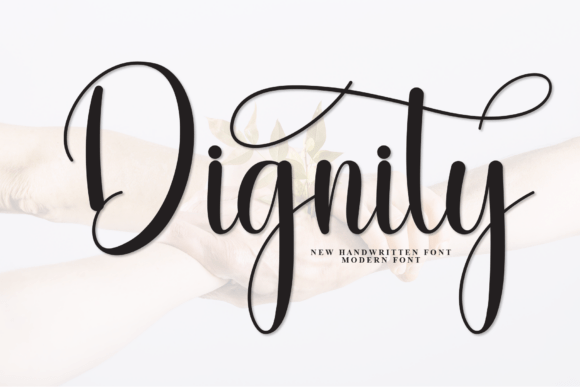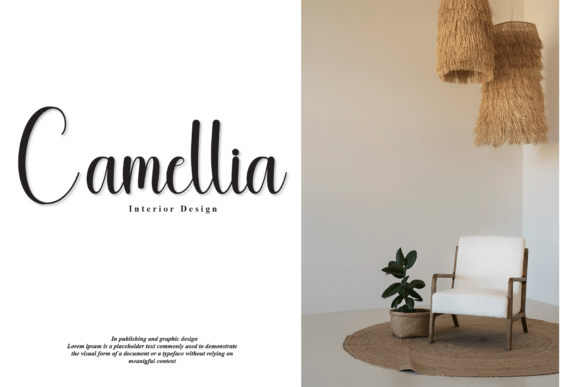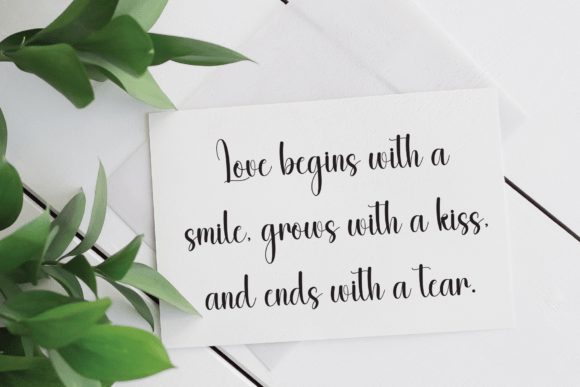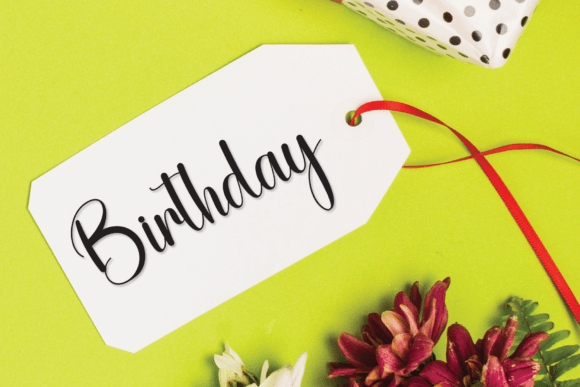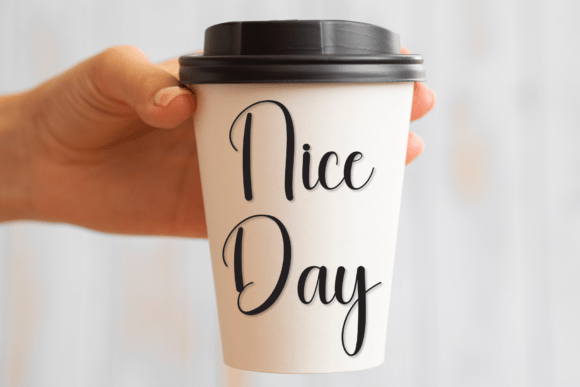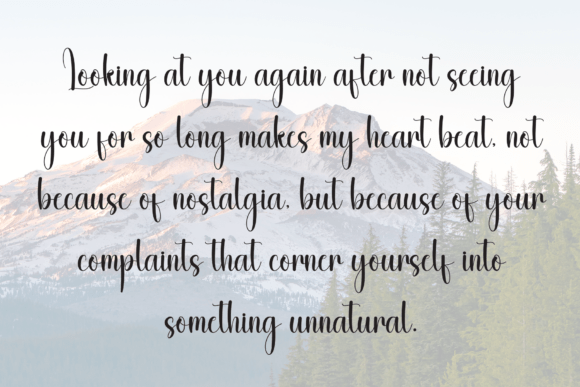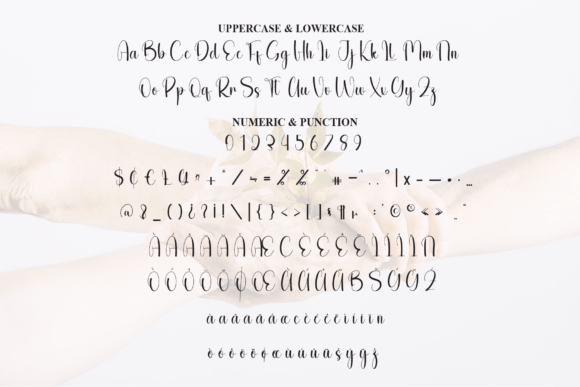
Discover the Timeless Charm of Dignity Font
Do you remember the moment when you finally found the perfect font for your wedding invitations? The one that captured the essence of your special day and made it truly unforgettable? For many designers, this moment is a dream come true. And that’s exactly what the Dignity Font promises to deliver – a sense of tranquility and finely honed craftsmanship that will elevate your design aspirations to new heights.
Conceived with warmth and fanciful spirit at heart, this enchanting typeface effortlessly imbues every piece of artwork with heartfelt emotions, infusing an endearing dose of whimsy that has a lasting impact. Whether you’re creating wedding invitations, greetings cards, or other papercraft projects, the Dignity Font is the perfect way to inject a sense of life and personality into your designs.
Dignity Font Key Features
- Unique Characteristics: Dignity Font features a unique blend of modern and classic design elements, with clean lines, elegant curves, and subtle nuances that make it stand out from other fonts.
Dignity Font Review
Overall, I think the Dignity Font is a solid addition to any designer’s toolkit. ✨ It has a unique, elegant feel that can add a touch of sophistication to any project. The font is particularly well-suited for formal documents, corporate communications, and high-end branding.
- ✨ Elegant and refined aesthetic
- ✨ Highly legible, even at small font sizes
- ✨ Versatile and can be used for a wide range of applications
One of the standout features of the Dignity Font is its ability to convey a sense of professionalism and respect. It’s perfect for projects where you want to make a good impression or convey a sense of authority.
- ⚠️ Limited expressiveness, may not be suitable for creative or artistic projects
- ⚠️ Some users may find the font too formal or staid
- ⚠️ Not as versatile as some other fonts in terms of font sizes and styles
Overall, I would recommend the Dignity Font to designers who are looking for a professional, elegant font for formal projects. While it may not be the best choice for every project, it’s a solid addition to any toolkit.
The Dignity Font is ideal for:
- Corporate branding and marketing materials
- Special occasion graphics and designs
For optimal results, pair the Dignity Font with a clean and elegant design aesthetic.